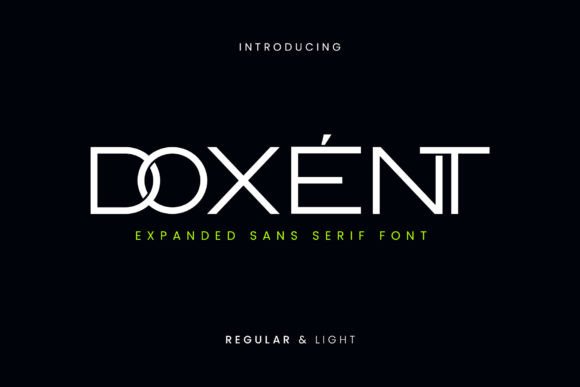
Discover the Elegance of Doxent Font: A Comprehensive Guide
In the world of typography, fonts play a crucial role in conveying the tone and personality of a design. For designers and crafters, finding the perfect font that embodies elegance, sophistication, and style can be a daunting task. However, if you’re looking for a font that checks all these boxes, look no further than Doxent Font. In this article, we’ll delve into the world of Doxent Font, exploring its features, benefits, and uses.
Introducing Doxent Sans Serif
Doxent Sans Serif is a balanced, smooth, elegant, and stylish sans-serif font that has taken the design world by storm. Its beautiful character and subtle nuances make it an excellent choice for a wide range of design projects. Whether you’re working on invitation card designs, company logos, movie titles, movie names, business cards, book titles, brand names, or various other designs, Doxent Sans Serif is the perfect partner.
The Characteristics of Doxent Font
So, what makes Doxent Font so special? Here are some of its key characteristics:
- Balanced and Smooth: Doxent Font boasts a balanced and smooth design, making it easy to read and visually appealing.
- Elegant and Stylish: The font’s elegant and stylish alternations and ligatures give it a sophisticated touch, perfect for high-end designs.
- Sans-Serif: As a sans-serif font, Doxent Font offers a clean and modern look, making it ideal for designs that require a sleek and contemporary feel.
Benefits of Using Doxent Font
Doxent Font offers numerous benefits for designers and crafters. Here are some of the advantages of using this versatile font:
- Versatility: Doxent Font can be used for a wide range of design projects, from invitation cards to company logos, and from movie titles to book covers.
- Elegance: The font’s elegant design makes it perfect for high-end designs that require a touch of sophistication.
- Readability: Doxent Font is easy to read, making it an excellent choice for designs that require clear and concise communication.
Uses of Doxent Font
Doxent Font can be used in various design projects, including:
- Invitation Card Designs: The font’s elegant design makes it perfect for creating beautiful and sophisticated invitation cards.
- Company Logos: Doxent Font’s stylish and modern design makes it an excellent choice for company logos that require a professional and sleek look.
- Movie Titles and Names: The font’s bold and elegant design makes it perfect for movie titles and names that require a touch of glamour.
- Business Cards: Doxent Font’s clean and modern design makes it an excellent choice for business cards that require a professional and sophisticated look.
- Book Titles and Brand Names: The font’s elegant and stylish design makes it perfect for book titles and brand names that require a touch of elegance.
Tips for Using Doxent Font
Here are some tips for using Doxent Font in your design projects:
- Pair it with Other Fonts: Doxent Font can be paired with other fonts to create a unique and visually appealing design.
- Experiment with Different Sizes: The font’s versatility makes it suitable for use in different sizes, from large headings to small body text.
- Use it for Headings and Titles: Doxent Font’s elegant design makes it perfect for headings and titles that require a touch of sophistication.
| Author | Idea Studio |
In conclusion, Doxent Font is a versatile and elegant sans-serif font that offers a wide range of benefits for designers and crafters. Its balanced and smooth design, elegant and stylish alternations and ligatures, and clean and modern look make it perfect for various design projects. Whether you’re working on invitation card designs, company logos, movie titles, or book covers, Doxent Font is an excellent choice. So, why not give it a try and discover the elegance of Doxent Font for yourself?